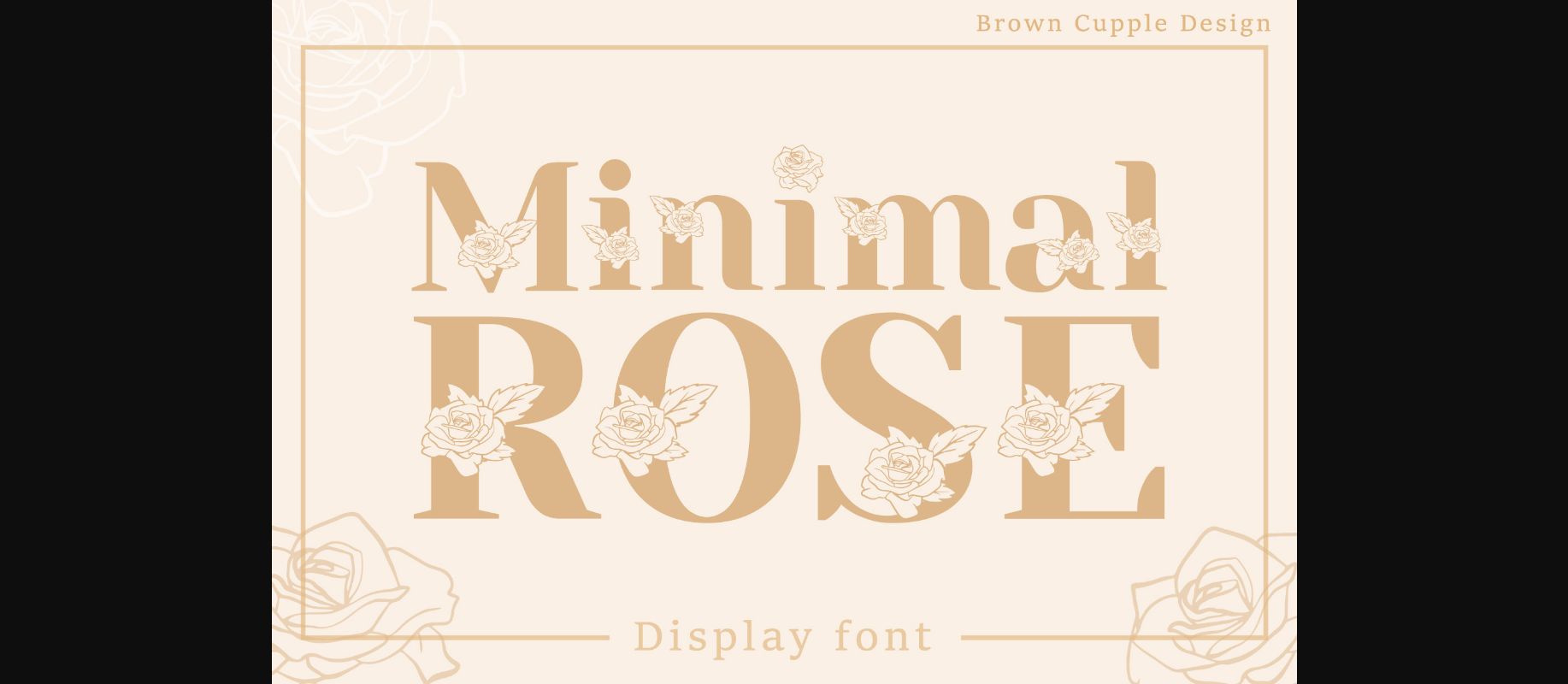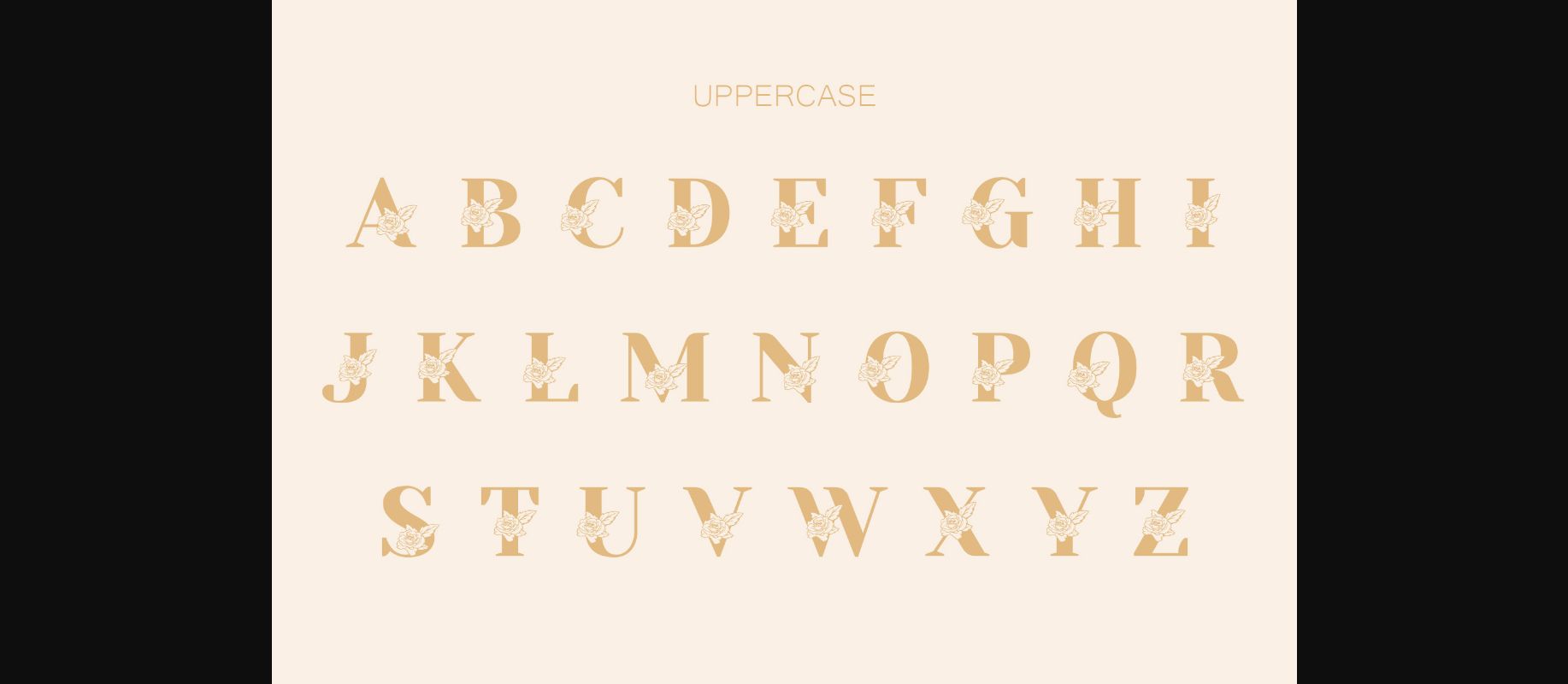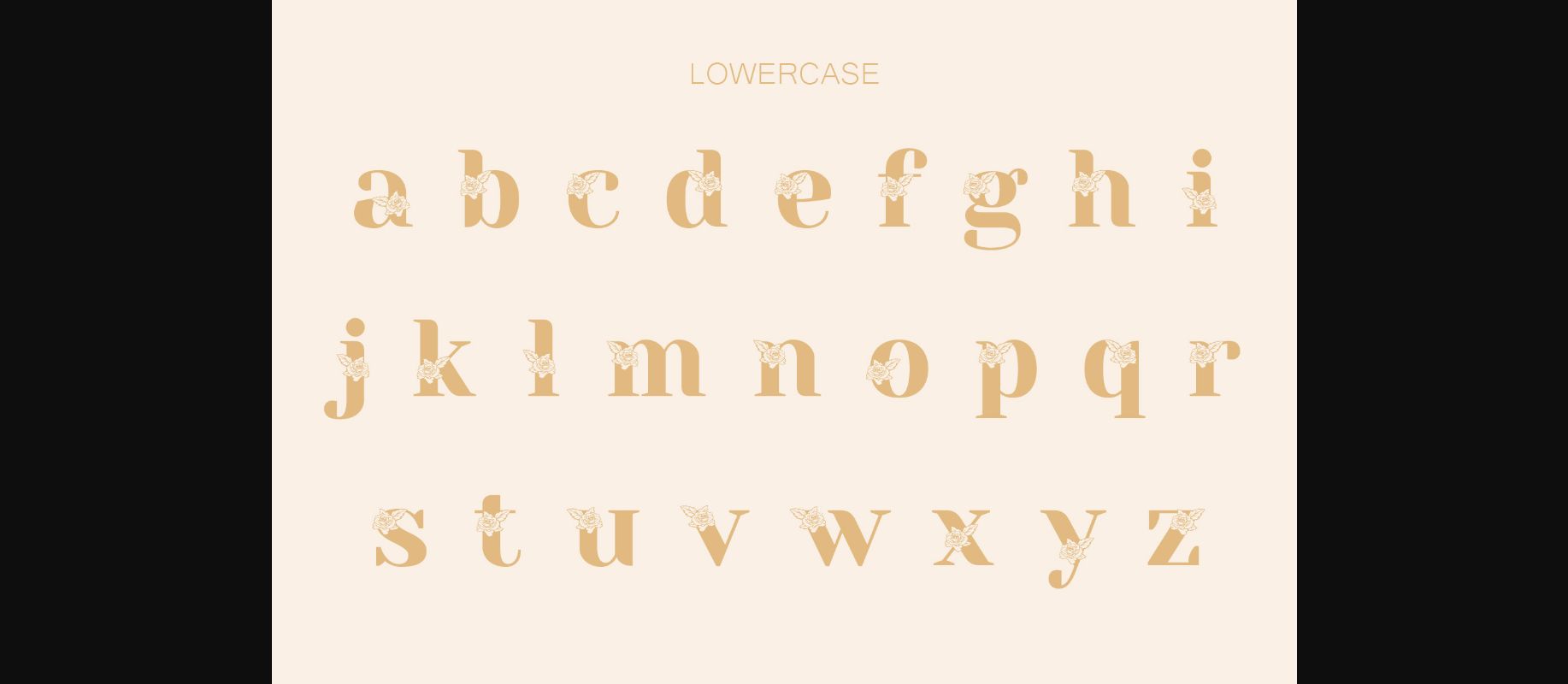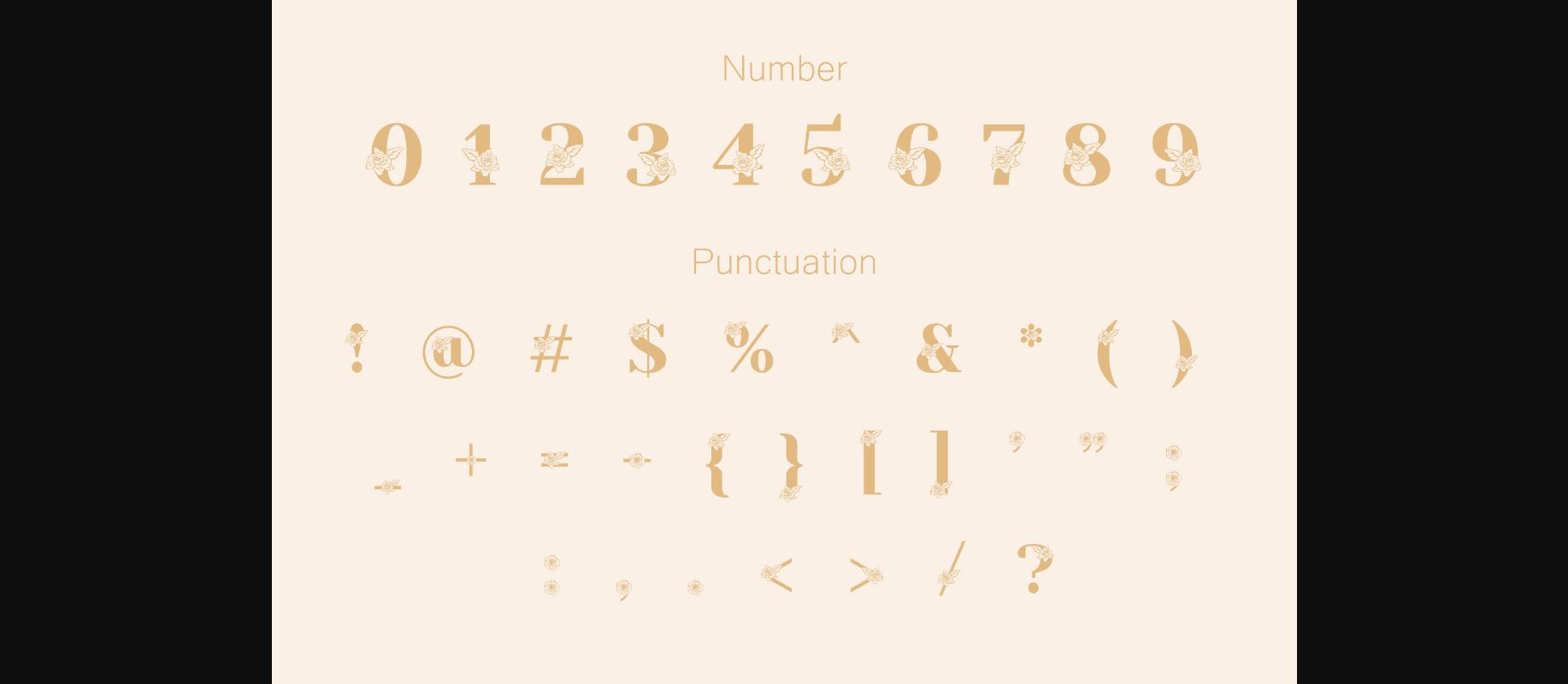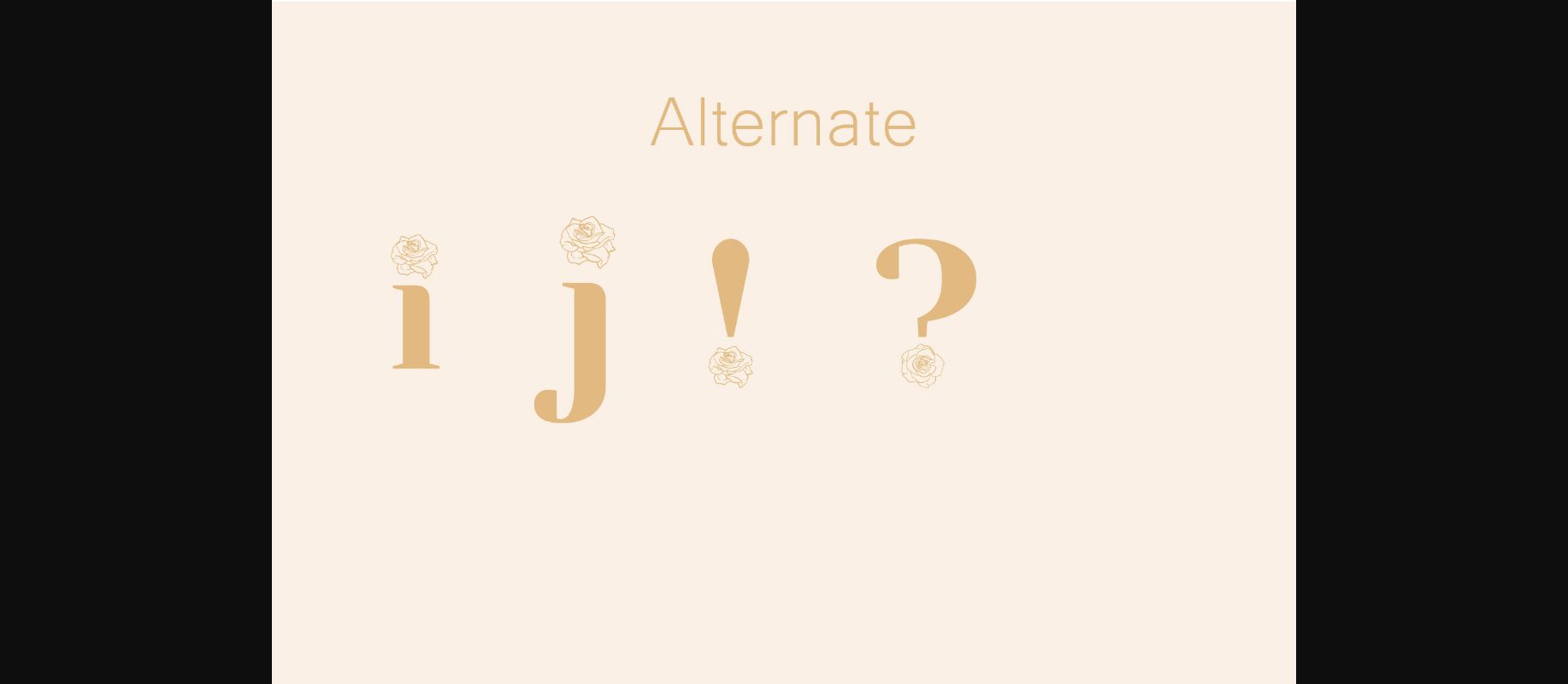
About Minimal Rose Font
Minimal Rose is a bold and incredibly elegant decorative font, featuring flowers as ornaments. You can use it for various projects, such as blog posts, logos, branding, ads, invitations, greeting cards, planners, photo albums, decorations, and much more. Add it to any of your designs, and enjoy the results!